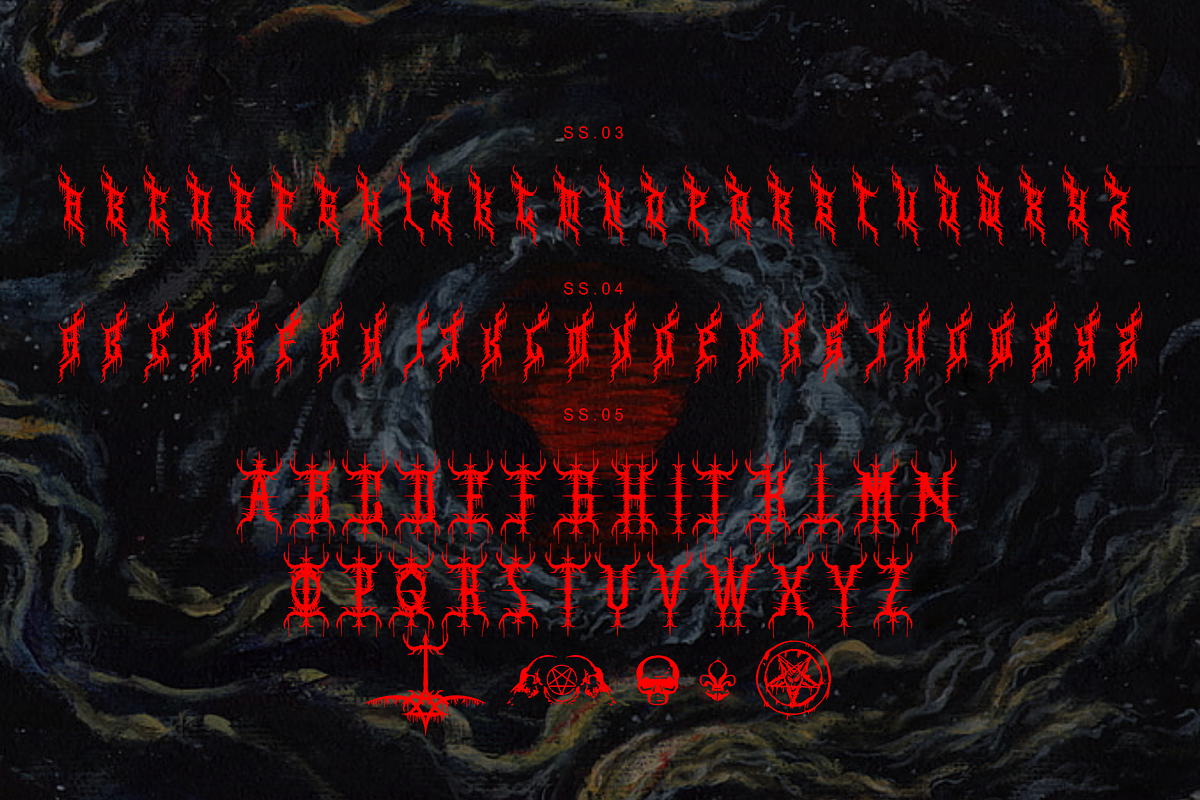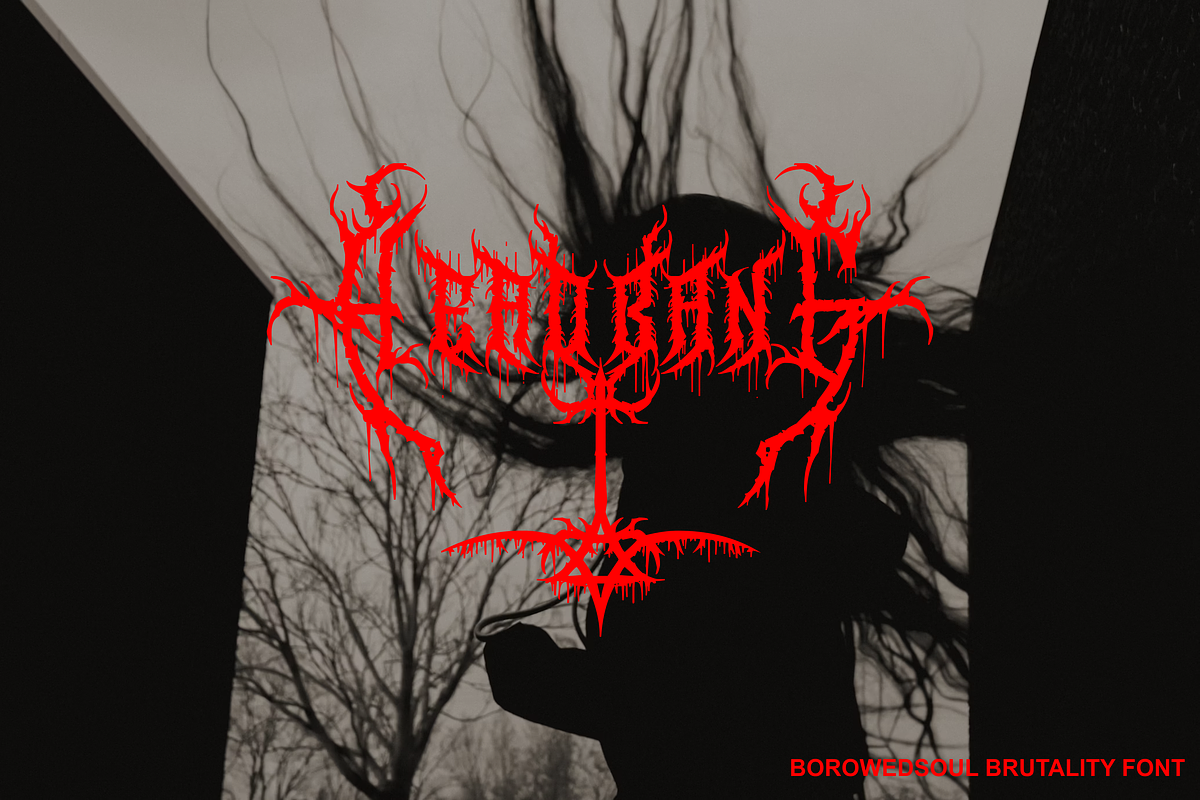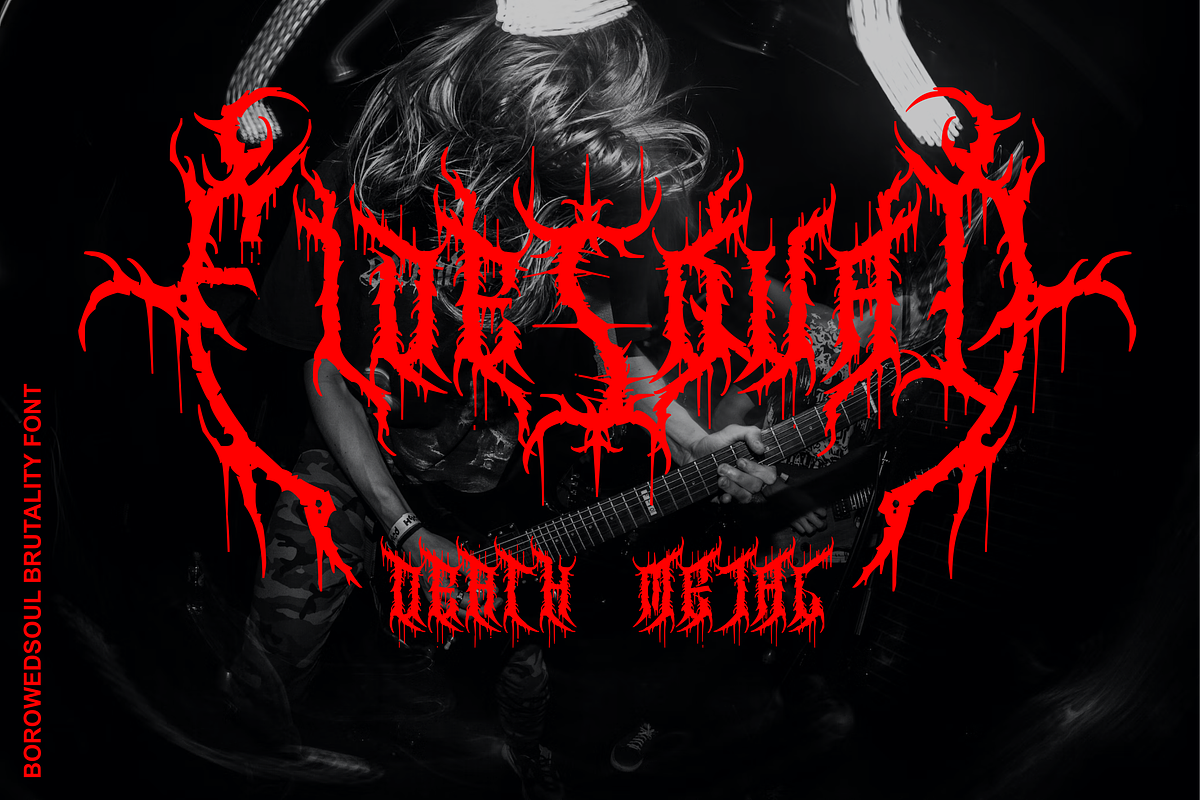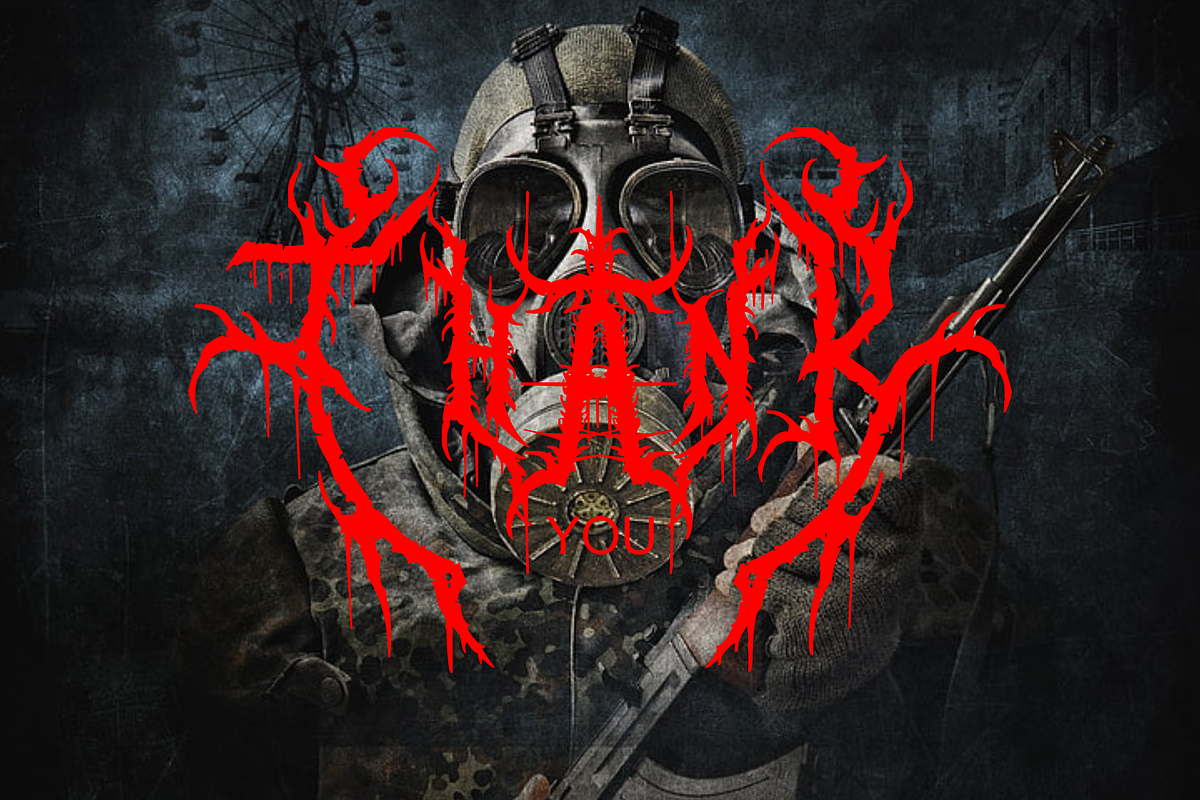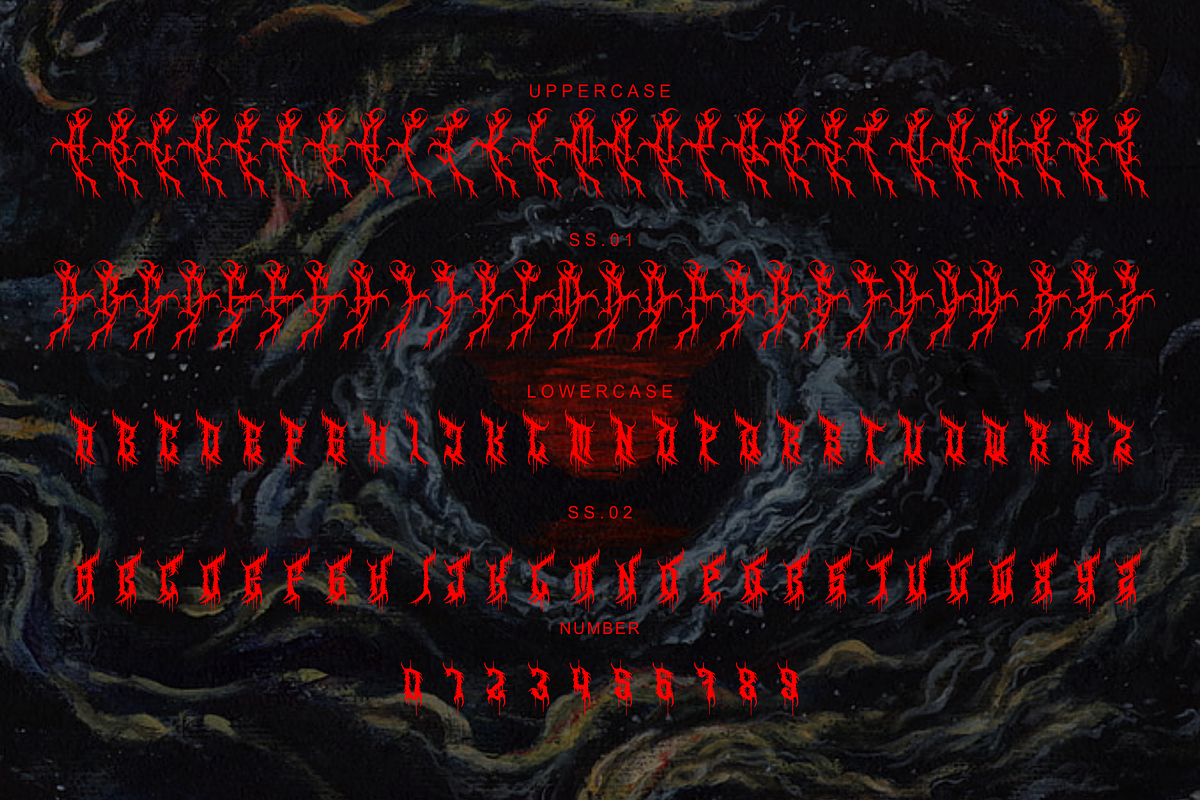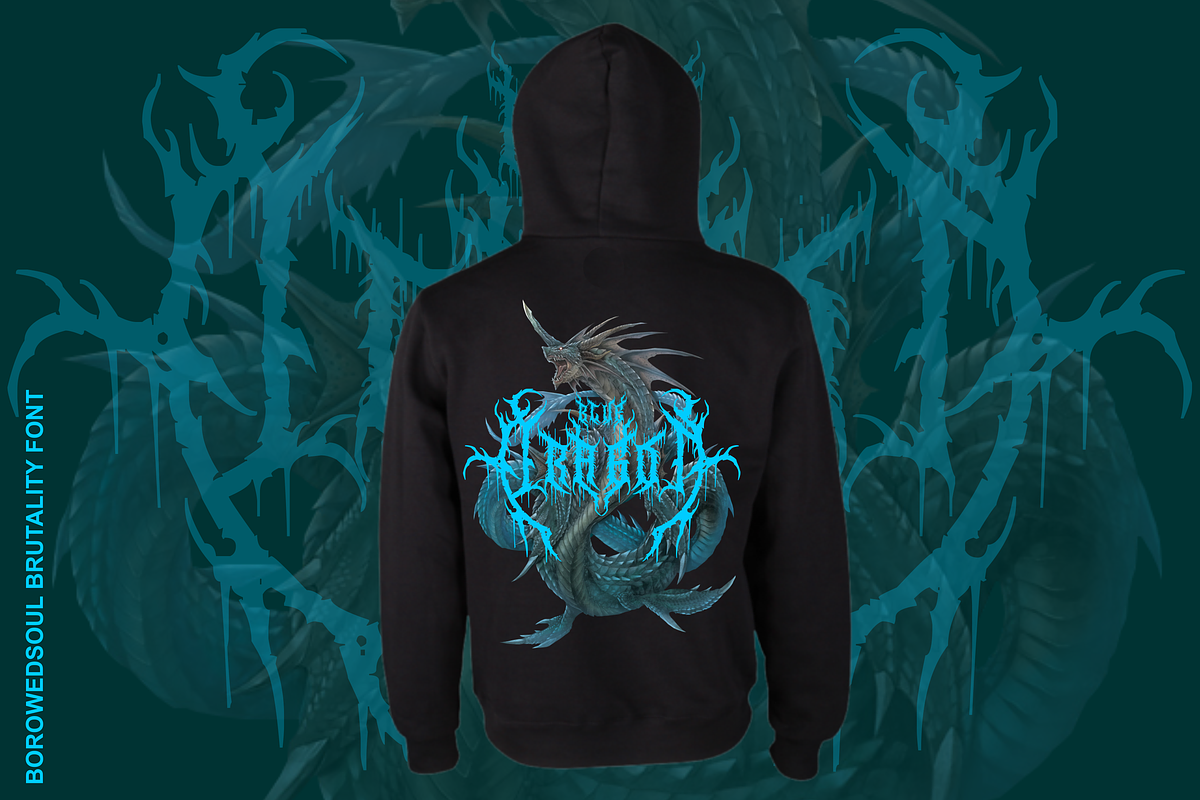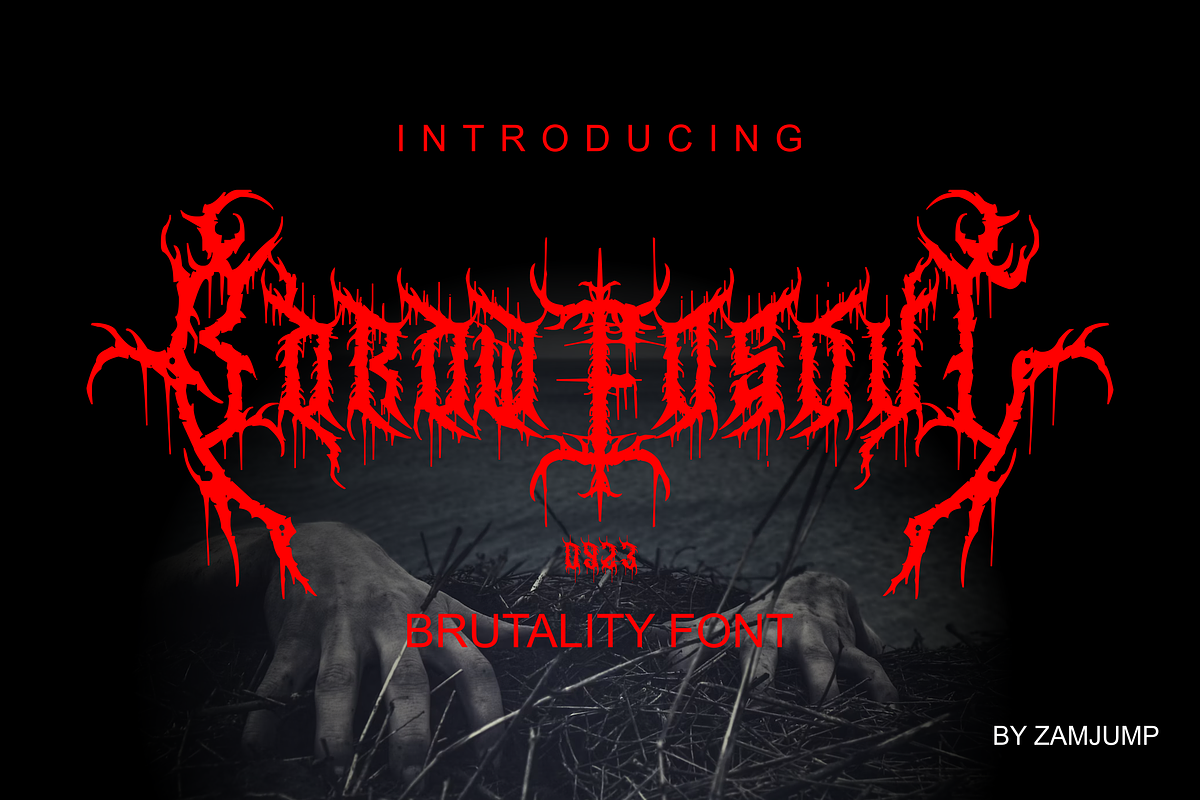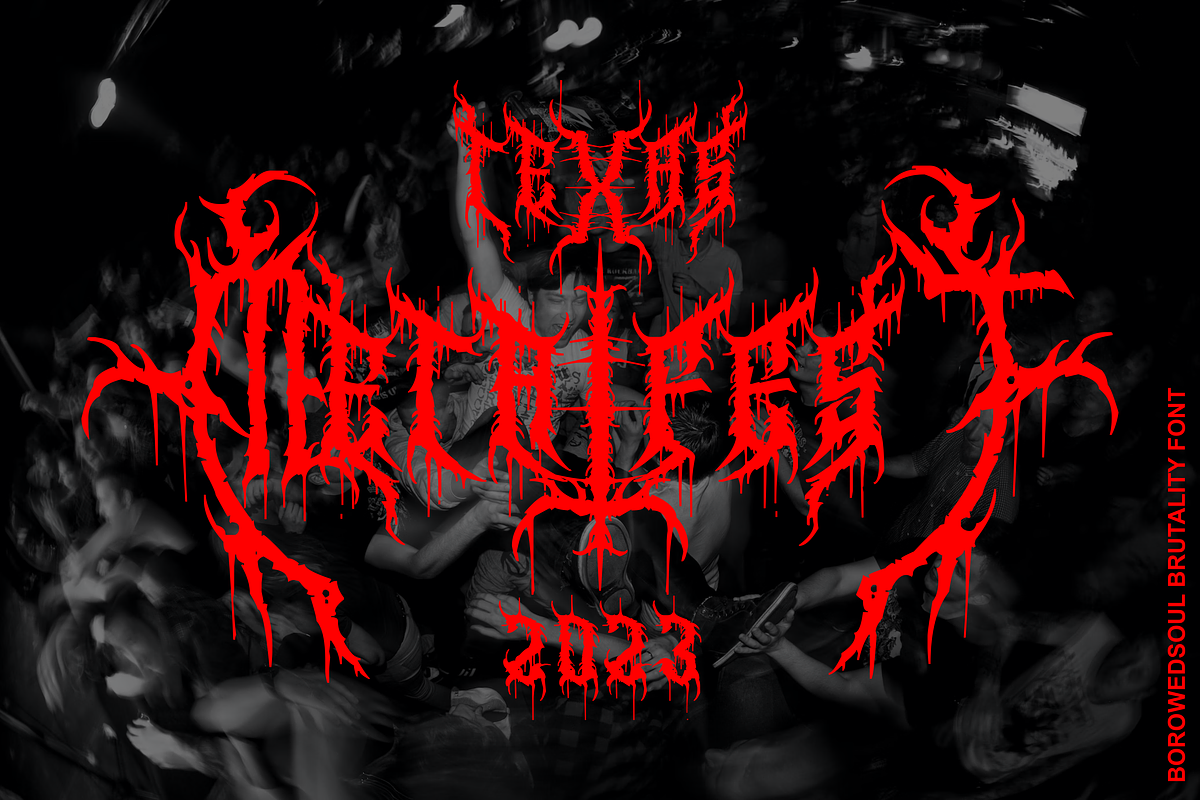
Borowedsoul is a font made with detail, inspired by the shape of metal logos, Borowedsoul displays a very strong black metal feel. Borowedsoul is suitable for metal band logos, merchandise, clothing, apparel, or anything that requires a black metal feel.